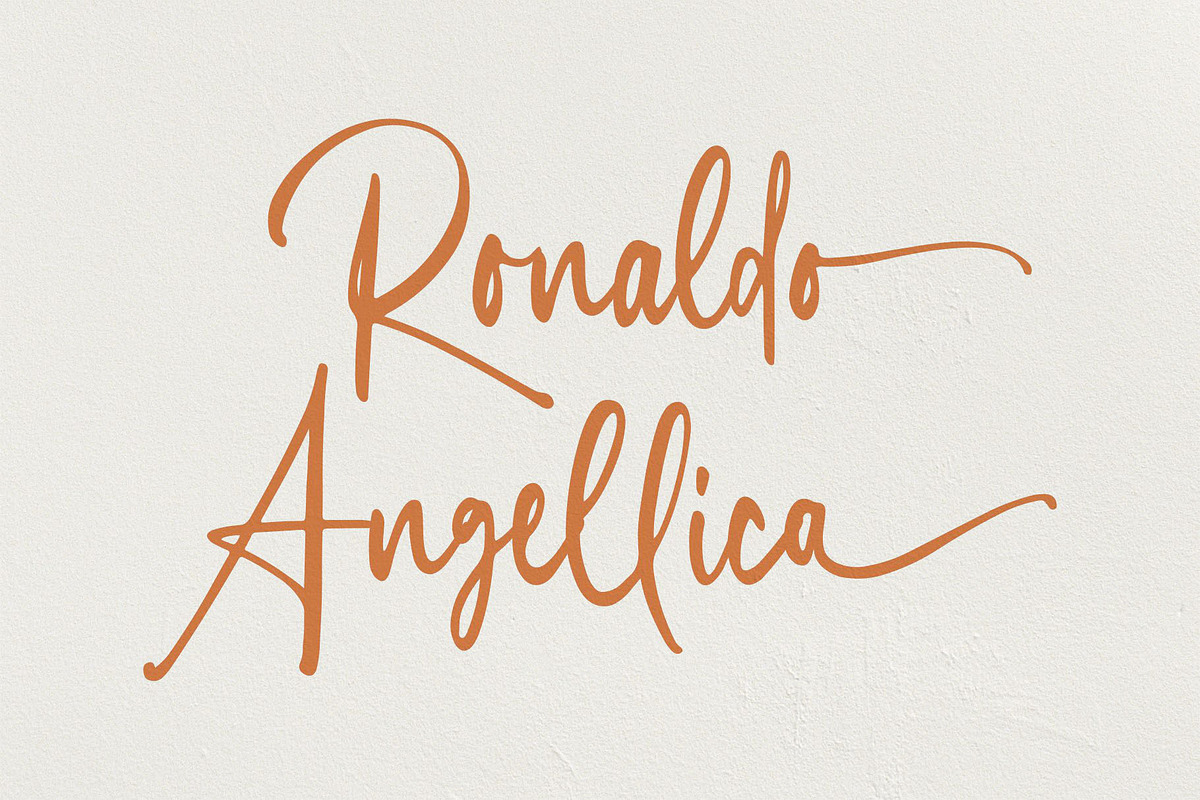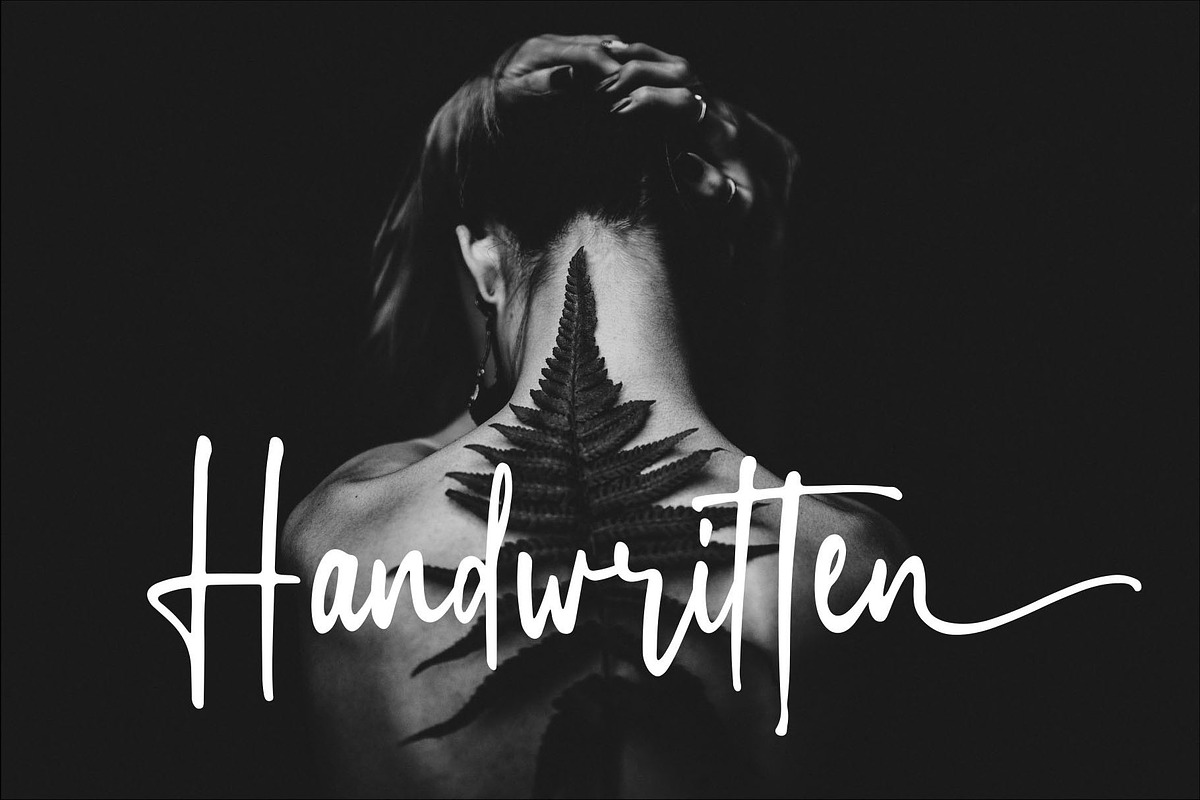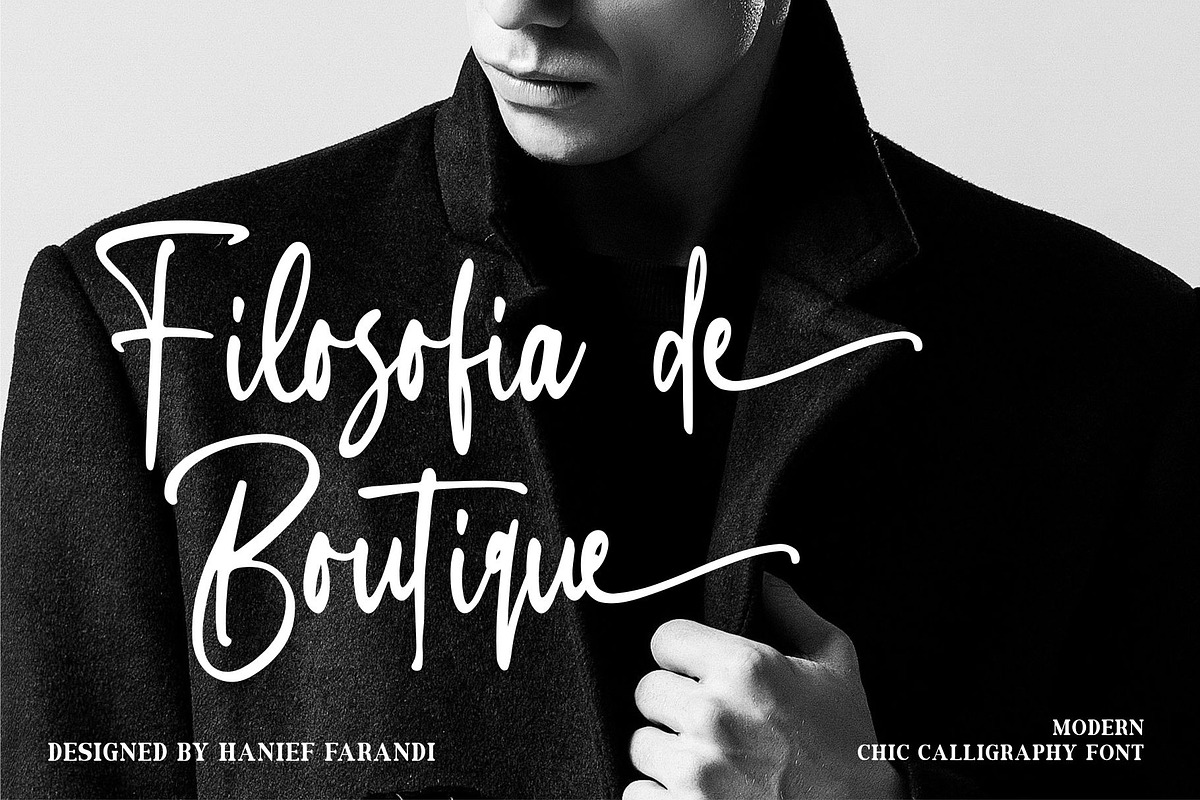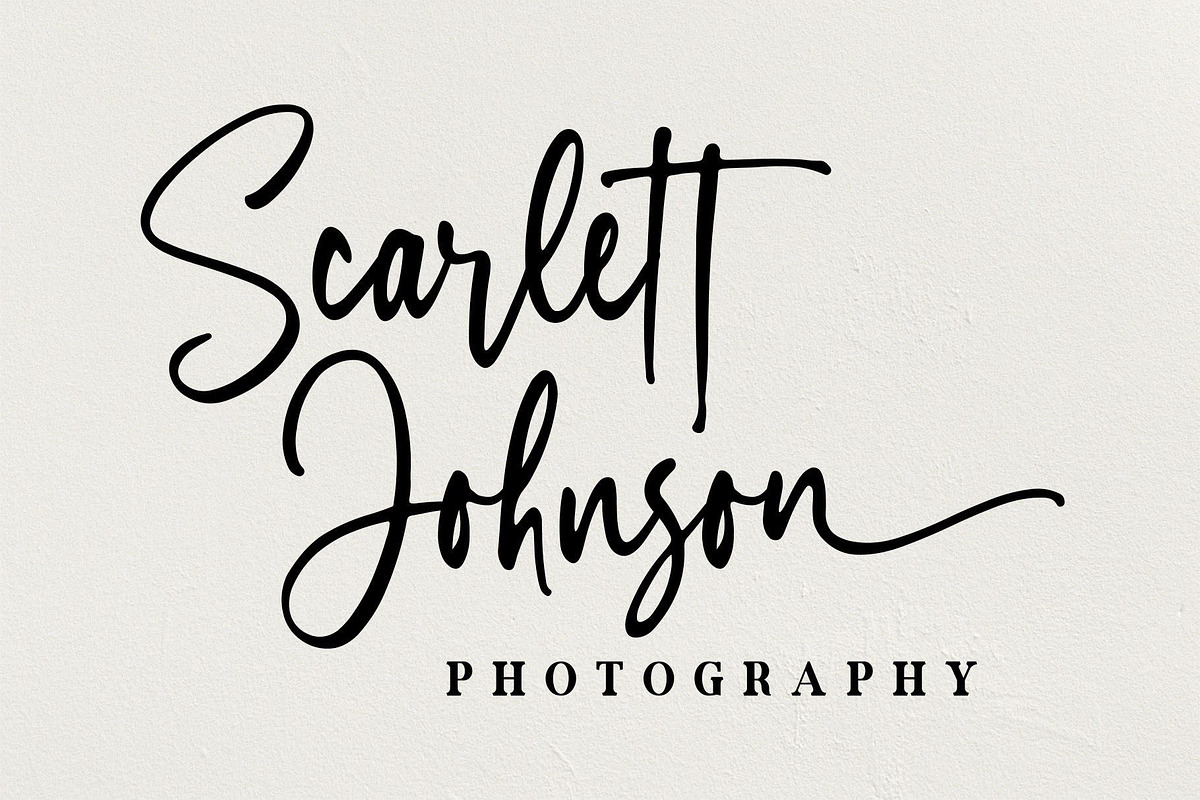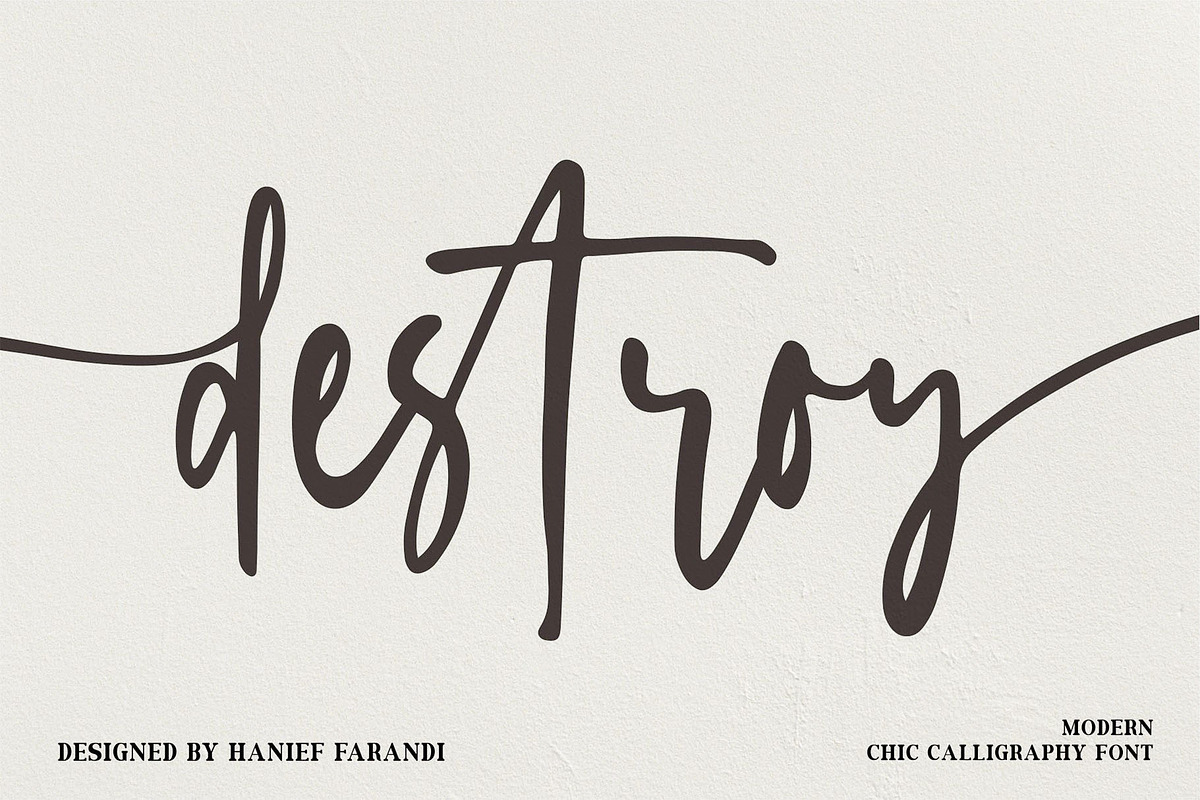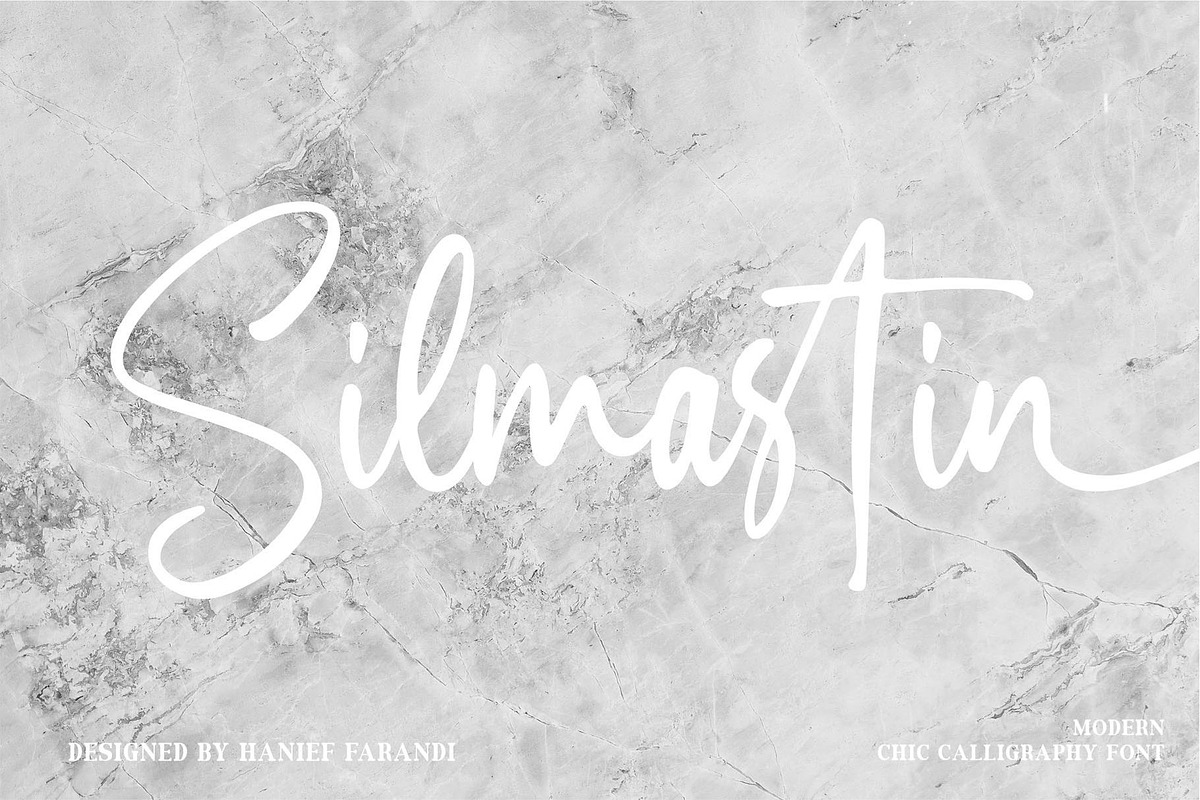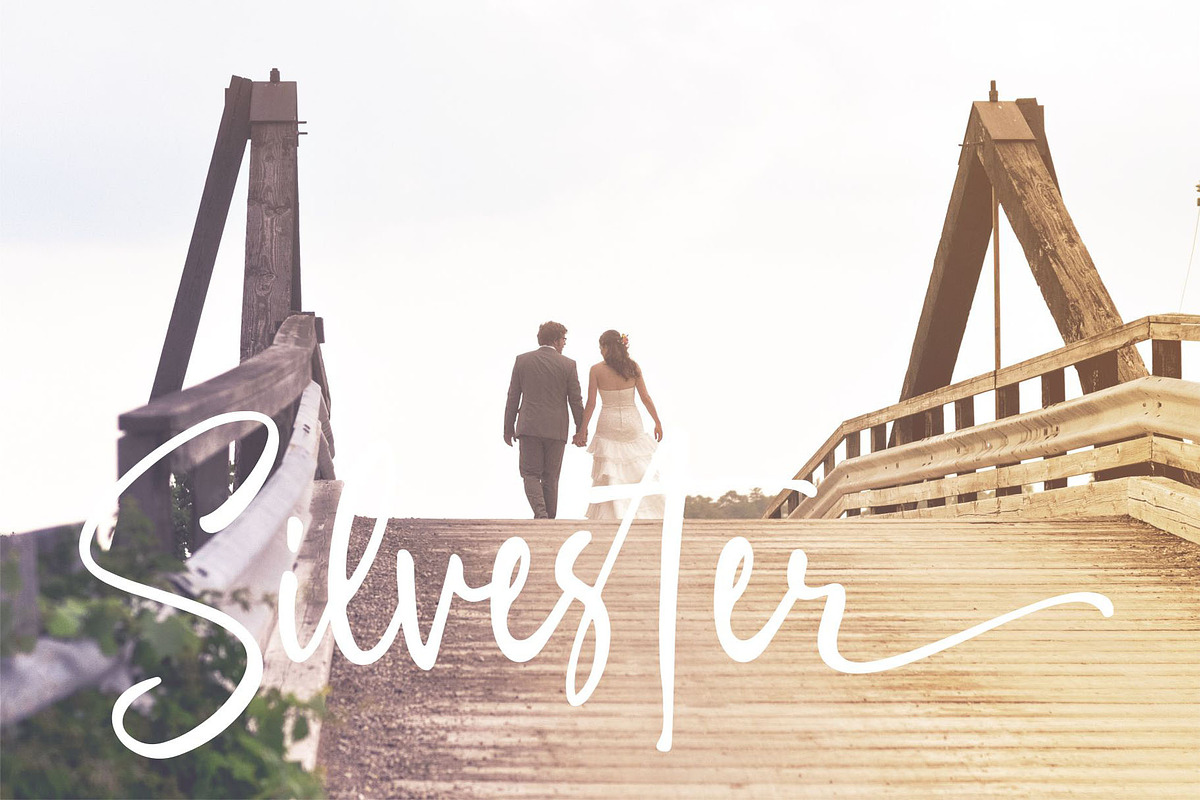
Silmastin. Handwritten script font
Silmastin is a modern Calligraphy font with magical pressure. i hope this font perfect for creating signature logos and watermarks for photography studio or wedding invitation, best for initial or branding logo signature .
Silmastin includes full set of beautifull hand lettered uppercase and lowercase letters, numerals, a large range of punctuation and ligatures. All lowercase letters include beginning and ending swashes, giving realistic hand-lettered style. What you get, darling?
- All lowercase letters include beginning and ending swashes, giving realistic hand-lettered style.